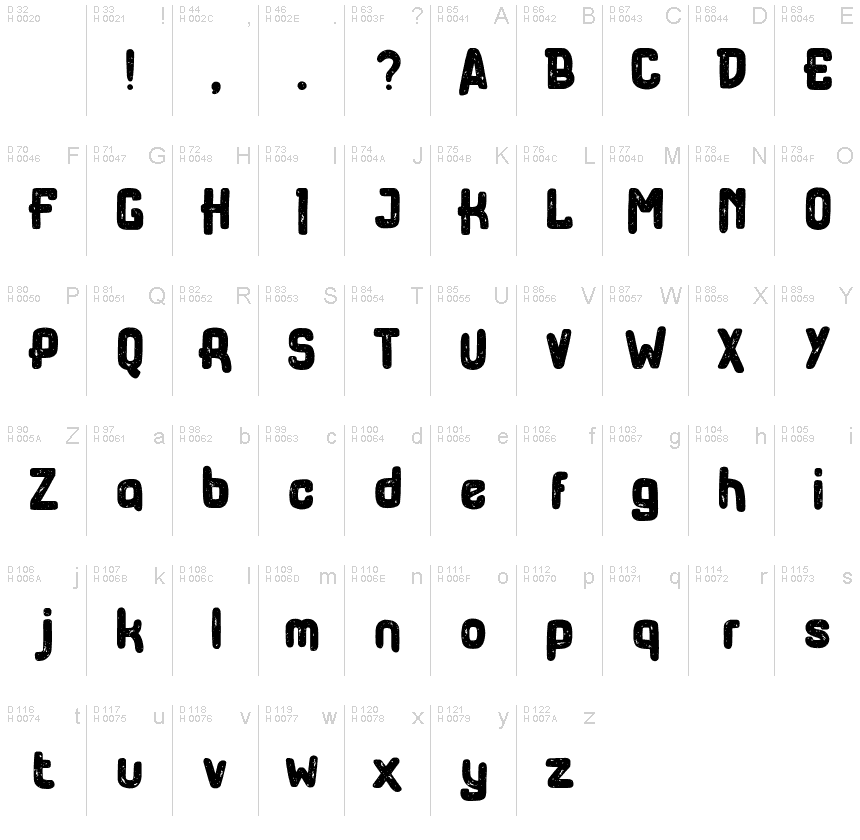
Talake
Talake, the latest display font from Two Us Studio, brings a unique and edgy style to your projects. With an eroded look that gives it a vintage vibe, this bold typeface is perfect for creating eye-catching logos, posters, and packaging designs. Its thick strokes and distinctive texture make it stand out in any setting, while its versatility allows it to be used in a variety of contexts. Whether you're designing for a grungy music festival or an artisanal coffee shop, Talake's bold and expressive look will make your message pop. Get creative with Talake today!